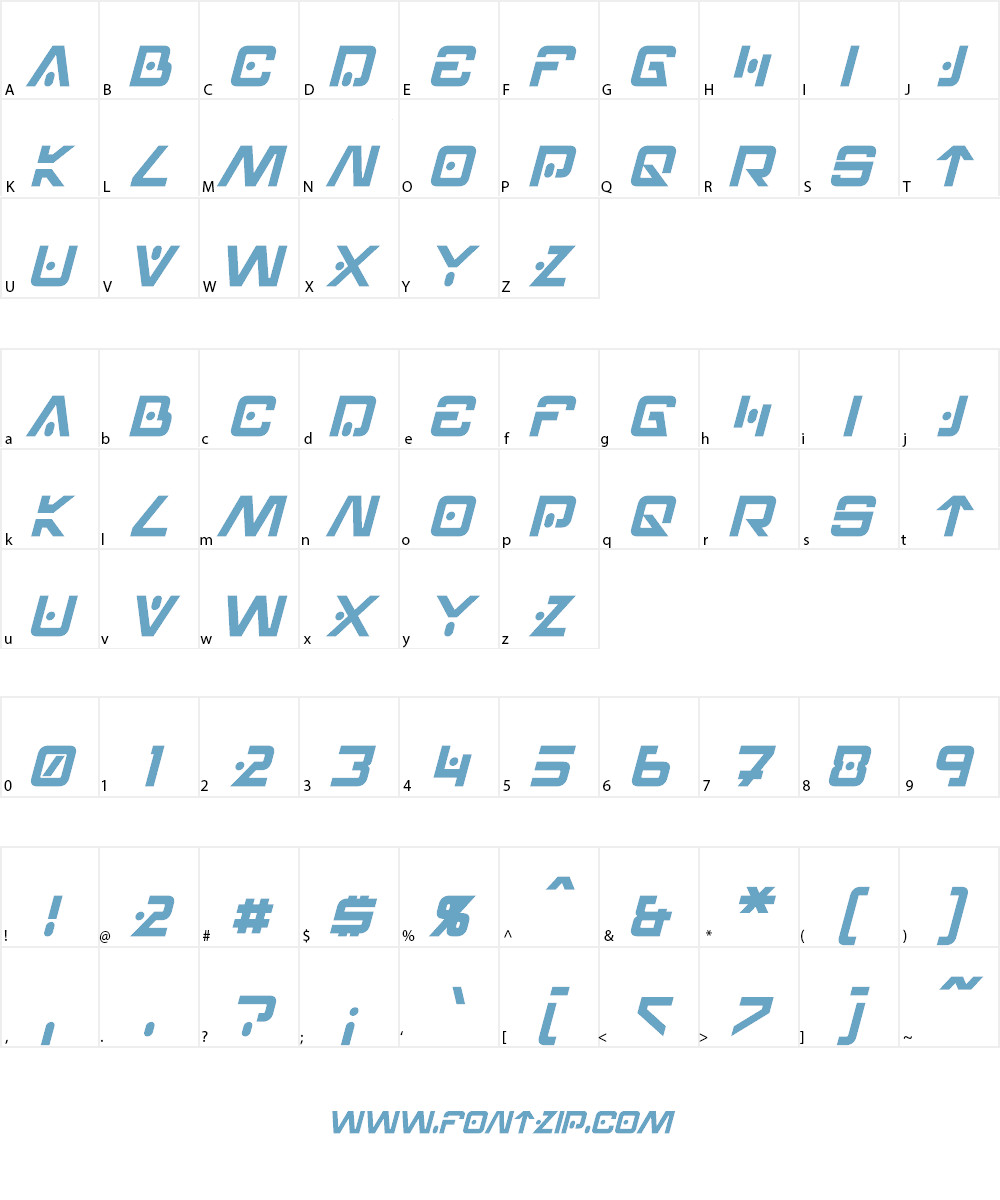
This science-fiction font is based on some of the plate markings founds in IDW's "Transformers" comic series. Includes full alphabet, extended character set, Euro. Left and right braces replaced with Autobot and Decepticon insignia, respectively. Bar replaced with Predacon insignia.